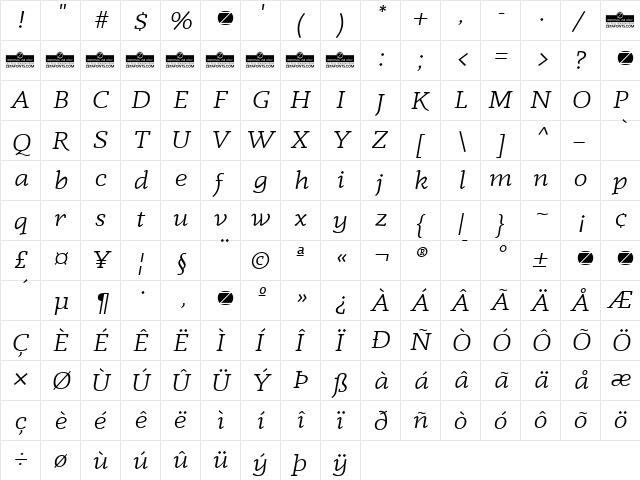
Radcliffe Display Book Italic Font Preview
Radcliffe Display Book Italic
Radcliffe Display Book Italic Font Details
| Style | Book Italic |
| Foundry | Studio Kmzero |
| Designer | Cosimo Lorenzo Pancini |
Design Context for Radcliffe Display Typeface
Radcliffe Display brings ornamental detail and strong personality to headlines and identities, where visual impact matters more than quiet functionality. The dynamic lean of this cut emphasises speed and emphasis in any layout.
Font Pairing: Pair with a clean neutral sans-serif for body copy to let Radcliffe Display's character lead without overwhelming the composition.
Pro Tip: Treat Radcliffe Display as the centrepiece of your typographic hierarchy. One strong heading set in a decorative face can carry an entire layout.